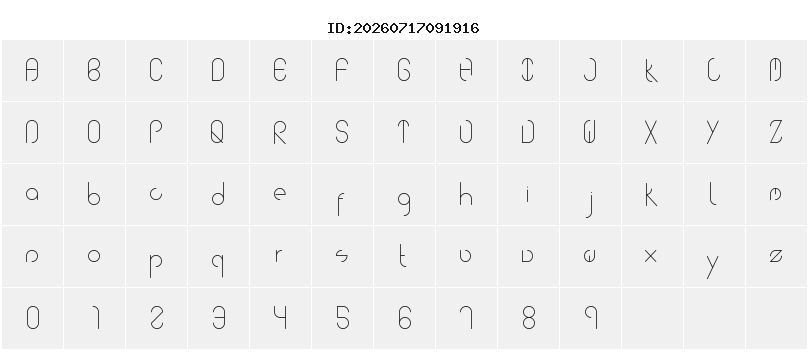
• Font Name: Bourbon
• Full Font Name: Bourbon
About Bourbon.ttf
Bourbon.ttf is a modern, elegant sans-serif font designed for ultimate readability and visual harmony. Perfect for branding, headlines, web design, and print materials.